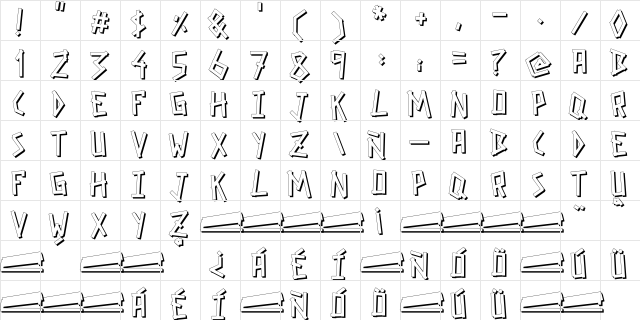
GRAPAFONT DemiBold shadow
| Foundry | lagalga |
| Designer | Heriberto Noguera Garcҡ |
Design Context for GRAPAFONT Typeface
GRAPAFONT brings ornamental detail and strong personality to headlines and identities, where visual impact matters more than quiet functionality. The heavy weight commands attention and anchors typographic hierarchies.
Font Pairing: Pair with a clean neutral sans-serif for body copy to let GRAPAFONT's character lead without overwhelming the composition.
Pro Tip: Treat GRAPAFONT as the centrepiece of your typographic hierarchy. One strong heading set in a decorative face can carry an entire layout.